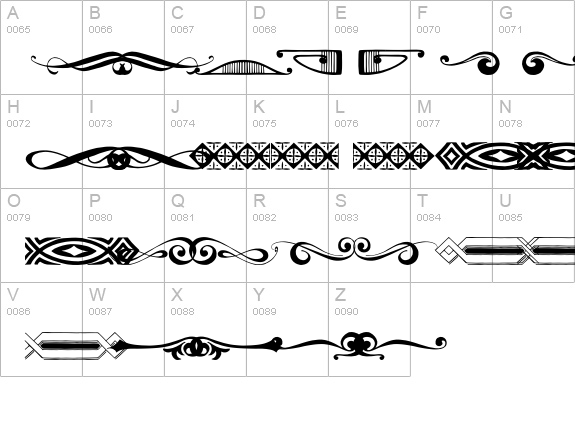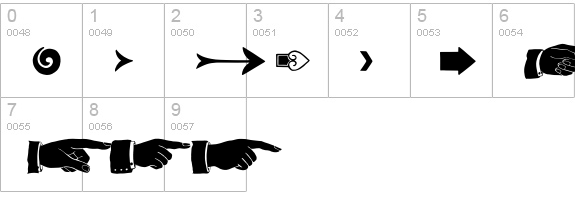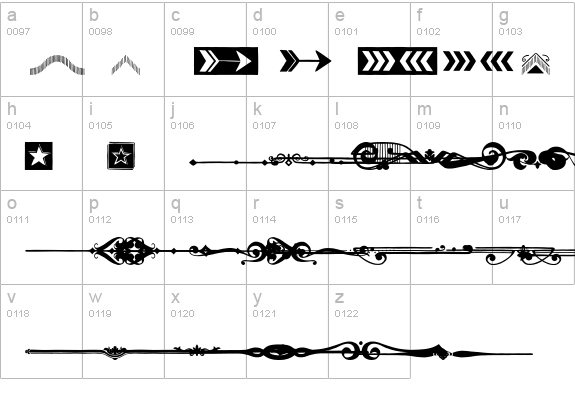
Bold Pressing Elements 01 is a strong, high-contrast variant in the Bold typeface family \xE2\x80\x94 well suited to headlines, attention-grabbing titles, and strong calls-to-action.
Bold Pressing Elements 01 is a modern and dynamic display font that exudes strength and confidence. With its bold lines and unique elements, this font is perfect for making a statement in headlines, titles, and branding projects. Its striking design will grab the attention of viewers and leave a lasting impression. Best of all, Bold Pressing Elements 01 is available for free download at FontsMarket.com. This means you can easily add this eye-catching font to your collection without any cost. Whether you're a designer looking for a powerful typeface or a creative looking to make a bold statement, Bold Pressing Elements 01 is the perfect choice for your next project. Download it now and start unleashing your creativity!